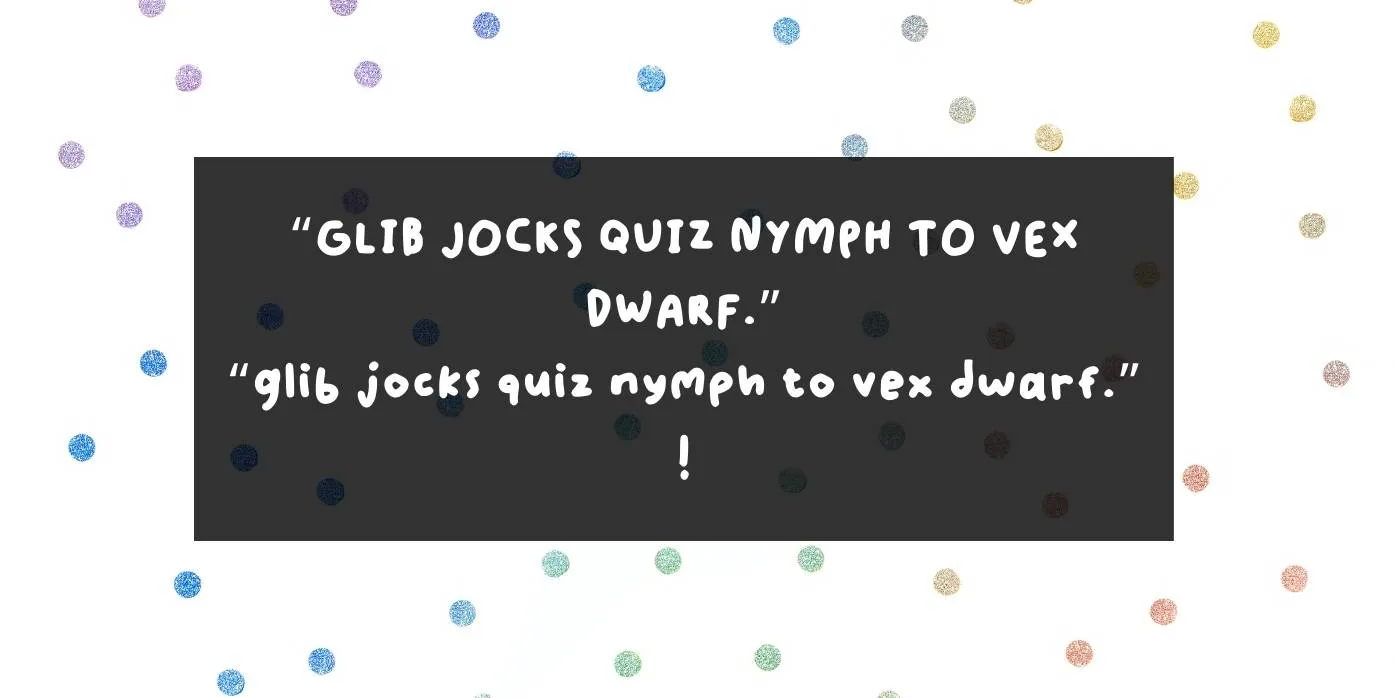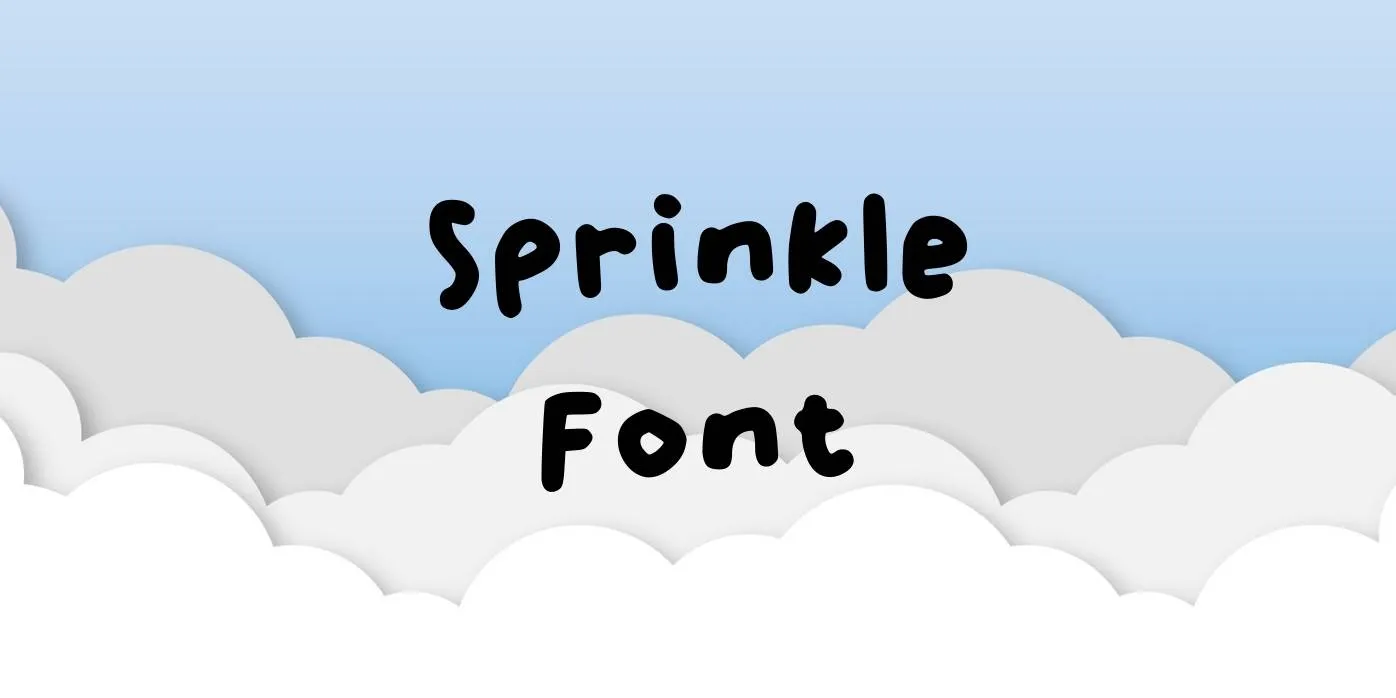
Sprinkle Font
Sprinkle Font was developed by Staratsta. This family belongs to the handwritten family. The styles included in this family are regular, bold, and italic. This family is used for CSS and HTML.
You can also use the atatrk font which is closest to this font family. When it comes to this classy font, there are a few things you should keep in mind. First of all, this font is best used for larger sizes. It’s also important to keep in mind that this font is not very legible in smaller sizes.